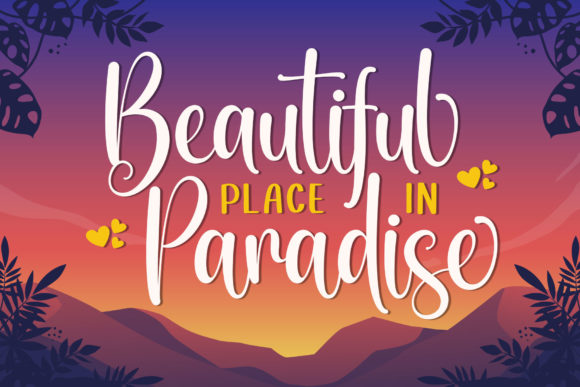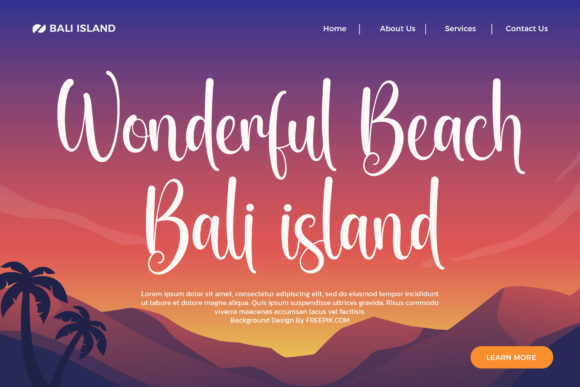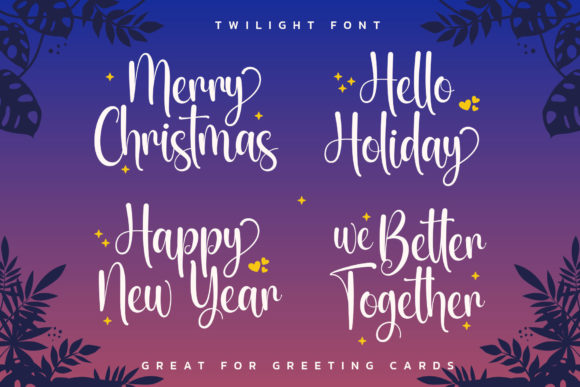
About Twilight Font
Twilight is a stunning and sophisticated script calligraphy font that exudes timeless elegance and charm. With its distinctive and modern appearance, this font is a versatile choice that adds a touch of luxury to a variety of design projects.
The beauty of Twilight lies in its graceful and flowing letterforms. Each character is meticulously crafted to create a harmonious and balanced look, capturing the essence of classic calligraphy with a contemporary twist. The font’s intricate curves and loops reflect the artistry of hand-drawn script, making it an ideal choice for projects that demand a sense of refinement and sophistication.
One of Twilight’s standout features is its versatility. Whether you’re designing a logo, creating branding materials, or crafting invitations, the font adapts seamlessly to different design contexts. Its elegant and unique style adds a touch of exclusivity to your brand identity, setting it apart from the ordinary and creating a memorable visual impression.
For wedding designs, Twilight brings a touch of romance and grandeur. The font’s graceful strokes and intricate details beautifully complement the spirit of love and celebration. Whether it’s wedding invitations, save-the-date cards, or table cards, Twilight adds a touch of sophistication that enhances the overall aesthetic of the event.
In the realm of stationery, Twilight elevates your creations to a whole new level. Whether you’re designing letterheads, business cards, or envelopes, the font’s refined and polished appearance communicates professionalism and attention to detail, leaving a lasting impression on recipients.
When it comes to social media posts, Twilight makes a statement. Its unique and modern calligraphy style captures attention and engages viewers, making it an excellent choice for sharing quotes, announcements, or promotional content. The font’s elegance and classiness lend a touch of luxury to your online presence.
Greetings cards come alive with Twilight’s graceful touch. Whether it’s birthday wishes, holiday greetings, or heartfelt messages, the font’s artistic flair adds a sense of warmth and sincerity, making your cards even more special and memorable.
Twilight also shines in the realm of digital design. Its intricate and captivating letterforms make it a valuable asset for creating visually appealing website headers, banners, and graphics. The font’s ability to convey elegance and modernity ensures a cohesive and polished look for your online presence.
Overall, Twilight is a font that effortlessly blends classic calligraphy with a contemporary edge. Its beautiful and elegant script lends itself to a wide range of projects, including logos, branding, invitations, stationery, wedding designs, greetings cards, and social media posts. Whether your goal is to convey luxury, sophistication, or romance, Twilight is a versatile choice that enhances the visual appeal of your creations.